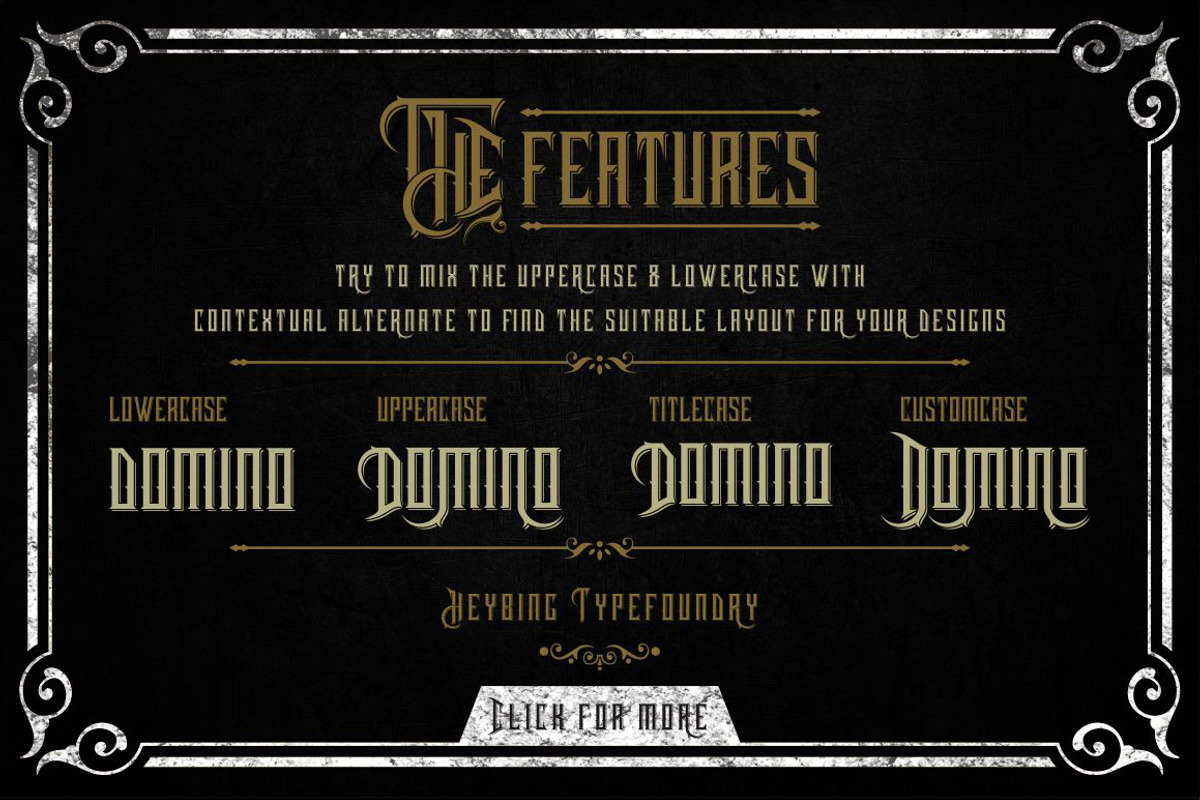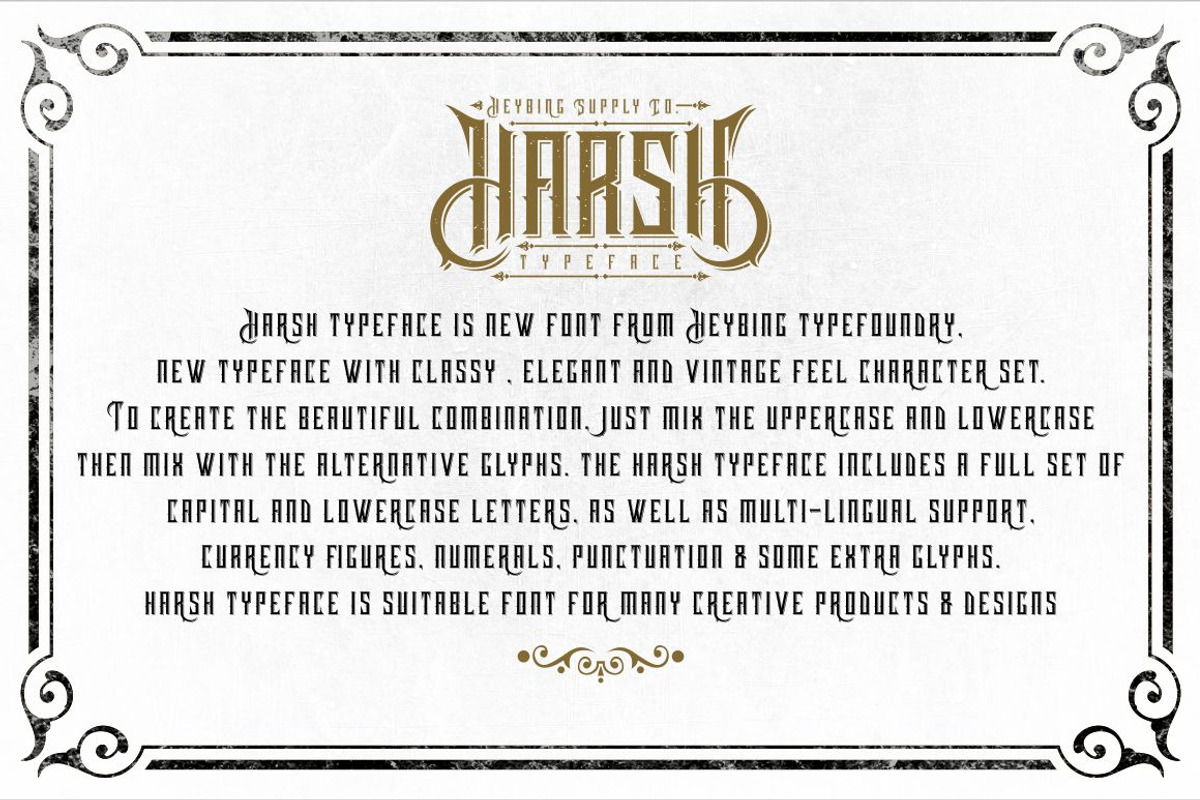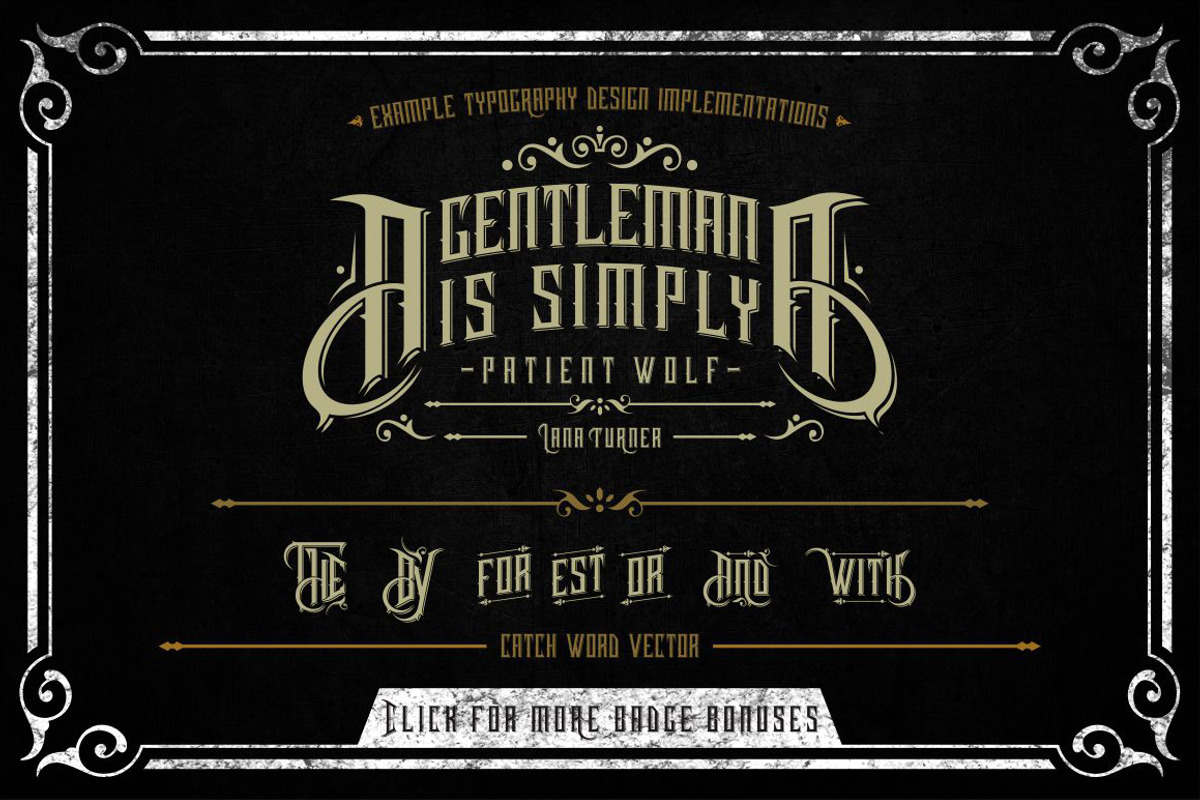
Harsh Typeface + Bonus
Harsh Typeface + Bonus by Heybing Supply Co. is a font selected for branding, posters, packaging, typography.
- The harsh typeface includes a full set of capital and lowercase letters, as well as multi-lingual support, currency figures, numerals, punct
Why Harsh Typeface + Bonus is worth a look
Harsh Typeface + Bonus by Heybing Supply Co. fits naturally into Branding, posters, packaging, typography.